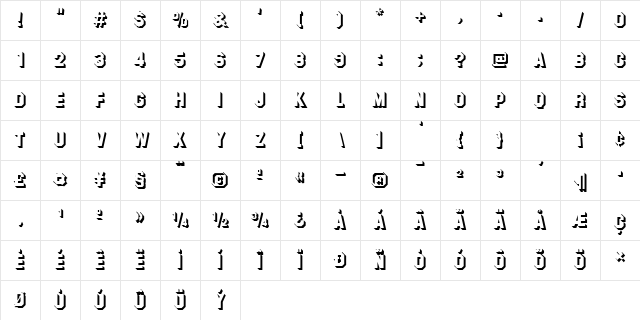
SuperstarShadow Normal Free Font
SuperstarShadow Normal
Design Context for SuperstarShadow
SuperstarShadow is built around its visual character rather than neutral utility - its distinctive forms are designed to make an impression at display sizes.
Font Pairing: Pair with a clean neutral sans-serif for body copy to let SuperstarShadow's character lead without overwhelming the composition.
Pro Tip: Use SuperstarShadow exclusively at display sizes - it was designed to be seen, not read at length. Let a neutral companion handle body copy.